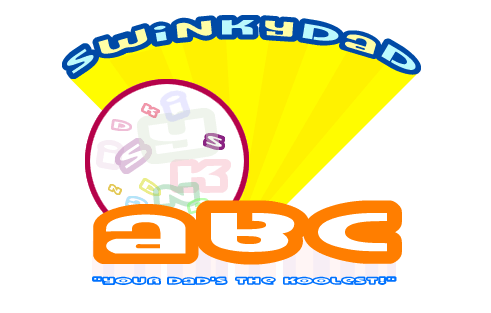
Swinkydad
This font is for all of the aging hipsters out there. You know who I'm talking about. They try to fit in with their kids, but teenagers today don't want to play hackey sack with their old man, especially with a hack that he made himself. The dads out there who say, "Hey kids, check out Dad's new shirt!" Wow, its Generra. That was cool about ten years ago. Yeah, this font is for you guys. Tell you what. . . you use this font and your kids will think you are "all that and a bag of chips"! How much simpler can life get with free fonts from me?